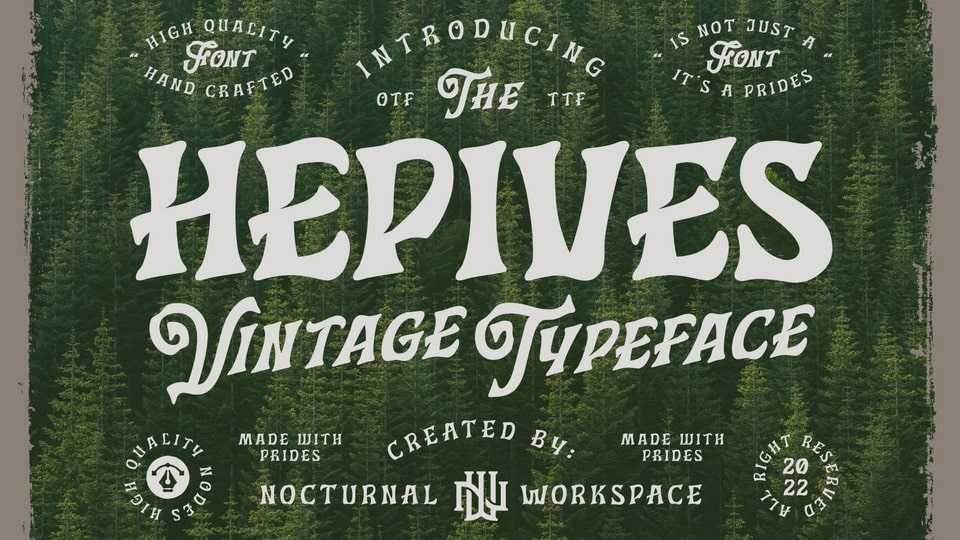
Download Hepives font, a vintage display typeface born to be a clothing trademark for the adventurous lover community. Hepives is inspired by old vintage denim labels, old clothes commercials, and labels on 90s tapes is ideal for use in logos, flyers, invitations, labels, clothes, and more.
Designer: Nocturnal Workspace